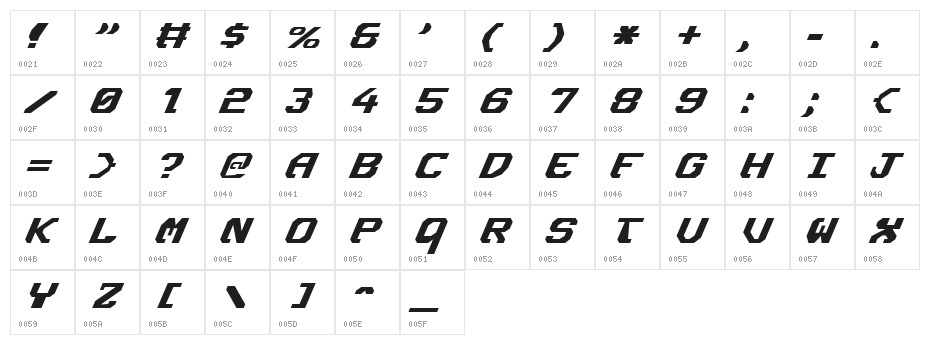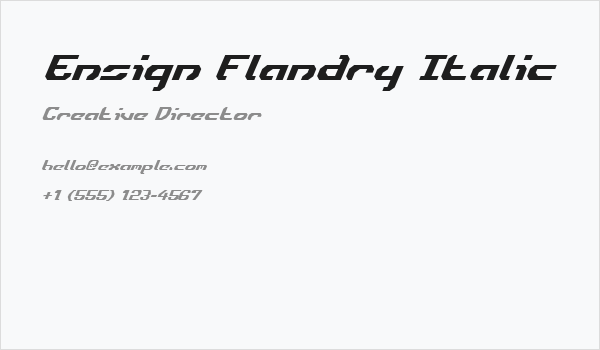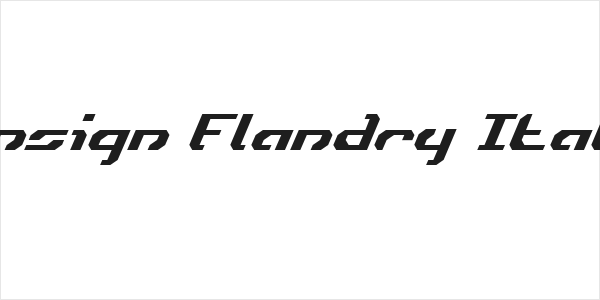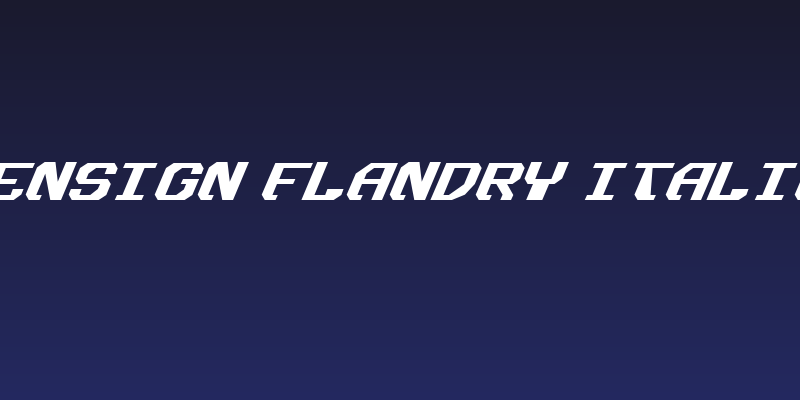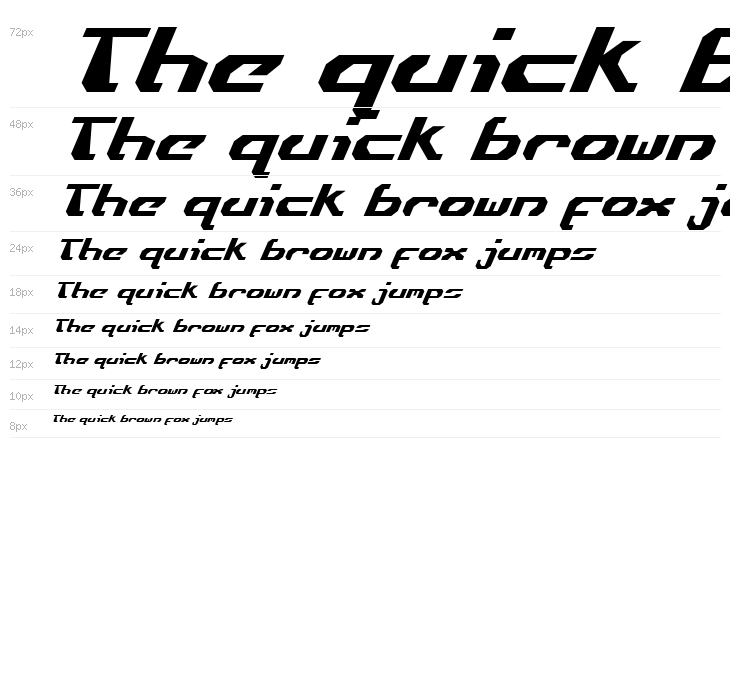
Ensign Flandry Italic Font
Ensign Flandry Italic Description
This font features a bold and dynamic italic style with sharp, angular edges that give it a futuristic and aggressive appearance. The characters are slightly slanted, enhancing the sense of motion and speed. The uppercase letters are particularly striking, with a consistent height and strong geometric shapes. The lowercase letters maintain the same angular design, creating a cohesive look throughout. Numbers and special characters follow the same stylistic cues, ensuring uniformity across all elements. The font's unique style makes it stand out, suitable for projects that require a modern and edgy aesthetic.